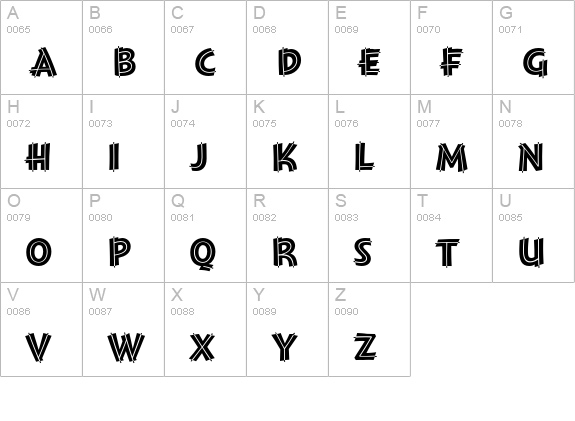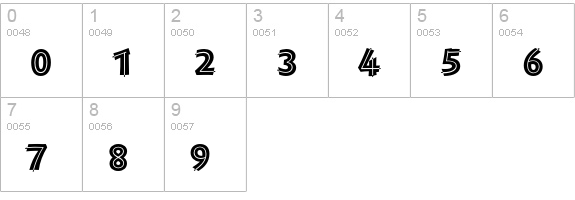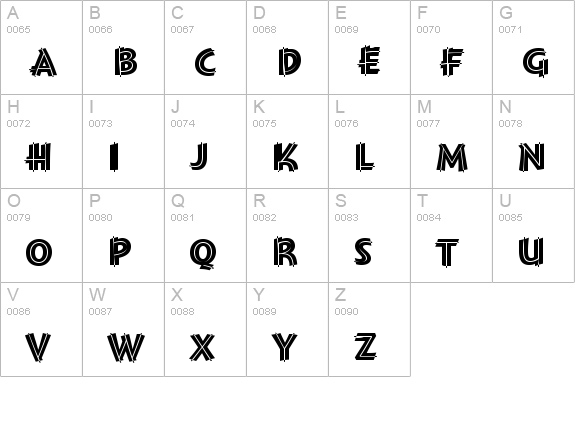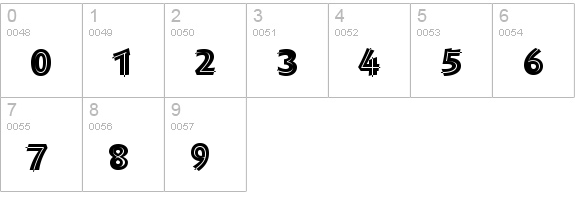
Montara Bold Initials is a strong, high-contrast variant in the Montara typeface family \xE2\x80\x94 well suited to headlines, attention-grabbing titles, and strong calls-to-action.
Montara Bold Initials is a striking and elegant font that exudes a sense of sophistication and style. Its bold and distinctive letterforms make a powerful statement, perfect for headlines, logos, and other design projects that call for a touch of flair. The font's initial characters are beautifully crafted with intricate details that add a touch of luxury to any design. What sets Montara Bold Initials apart is not just its stunning aesthetics, but also the fact that it is available for free download at FontsMarket.com. This means that designers and creatives can easily access this high-quality font without any cost, making it a valuable addition to any font collection. With Montara Bold Initials, you can elevate your designs and make a lasting impression without breaking the bank.